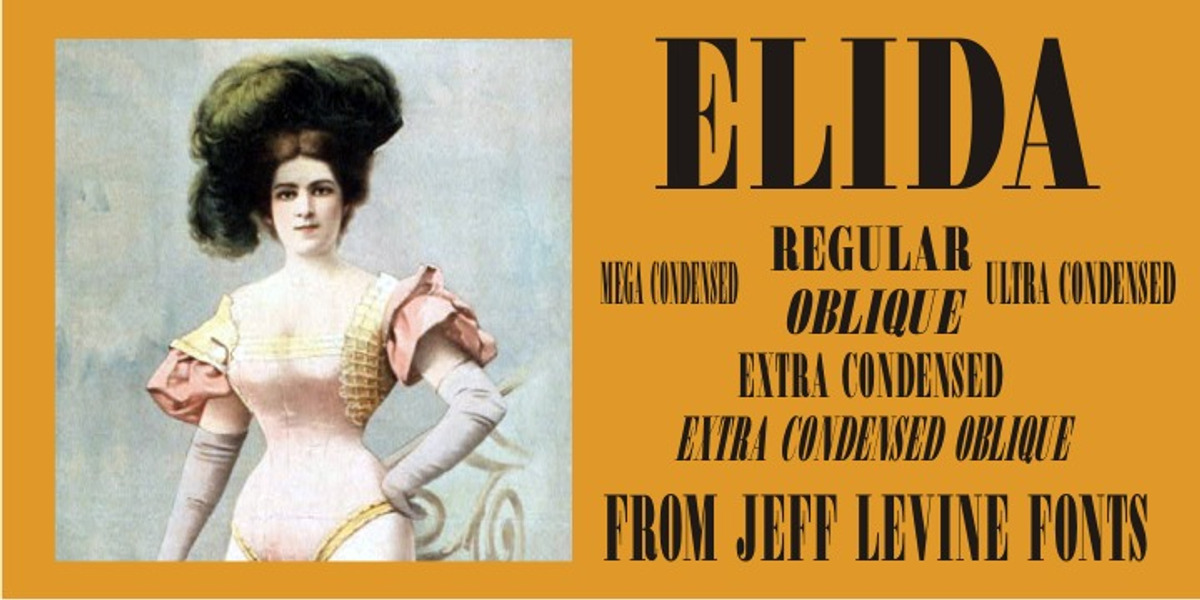
Elida JNL
Elida JNL was modeled from an image of some wood type for sale online.
Although the type design most likely has its roots in the classic Bodoni, there were a few characters in the original wood type that had a bit of a square or block shape to them. Those characters were modified in order to keep with the overall roundness of the other characters.
The name Elida JNL comes from a small town in New Mexico. Available in six styles: Regular, Oblique, Extra Condensed, Extra Condensed Oblique, Ultra Condensed and Mega Condensed.